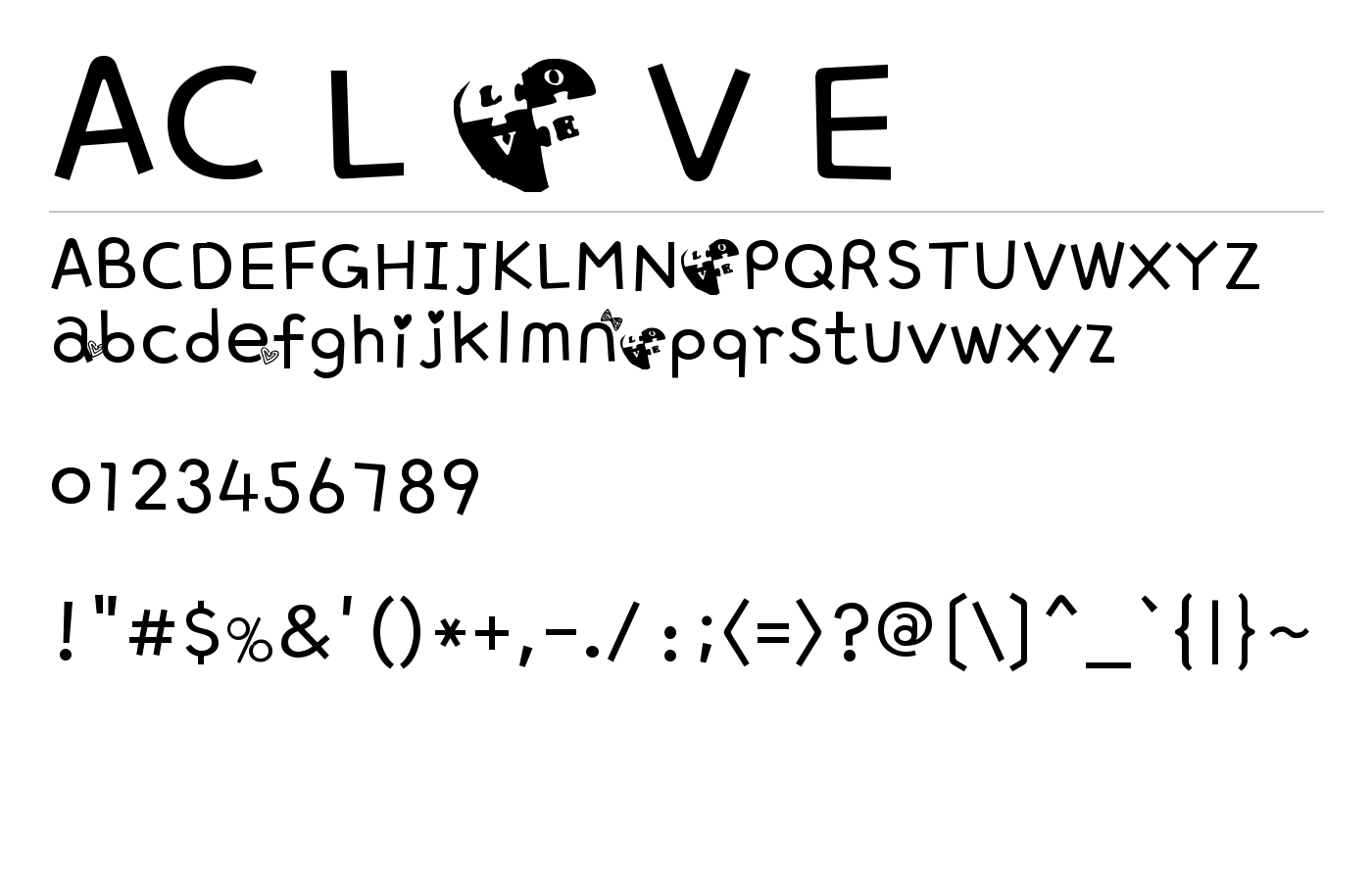
AC L O V E is a quirky sans serif font with playful, slightly irregular letterforms and whimsical heart and puzzle piece accents in certain characters. It feels fun and youthful, making it ideal for creative projects, children's books, or casual branding that seeks a friendly and approachable vibe. This font works well in headlines, logos, or any design needing a touch of personality without sacrificing clarity.
AC L O V E Font